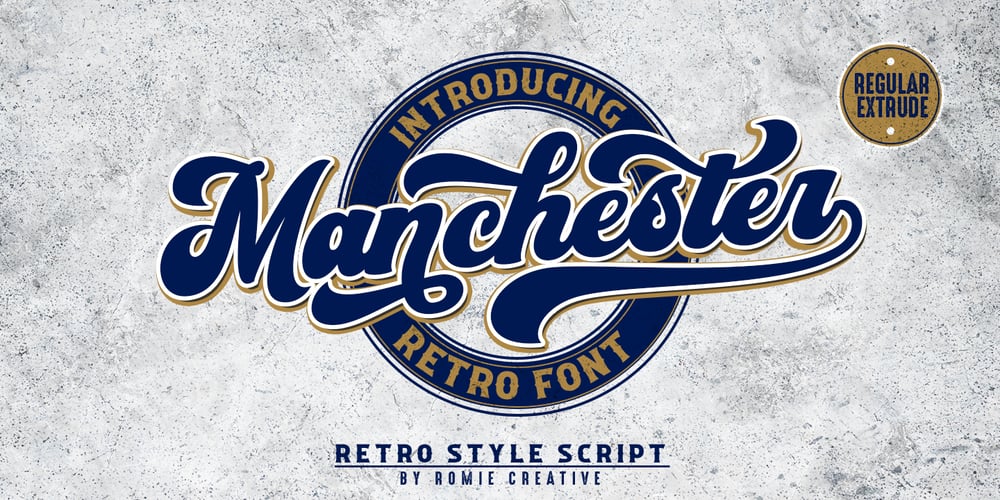
Manchester Extrude Font Family was designed by Romi Rahmadi and published by Romie Creative. Manchester Extrude contains 2 styles and family package options. Manchester is a vintage retro font. Inspired by retro typography and lettering from the 70s and 80s combined with a bold typographic style. This font is perfect for vintage and retro designs, badges, logos, t-shirts, posters, branding, packaging, signs, book covers and more!